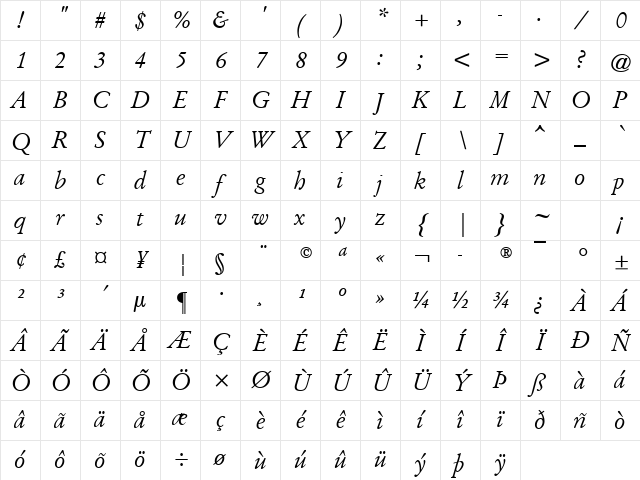
Garamond is a composed and adaptable typeface that performs quietly and consistently across a wide range of design contexts. The slanted form adds forward momentum and visual energy.